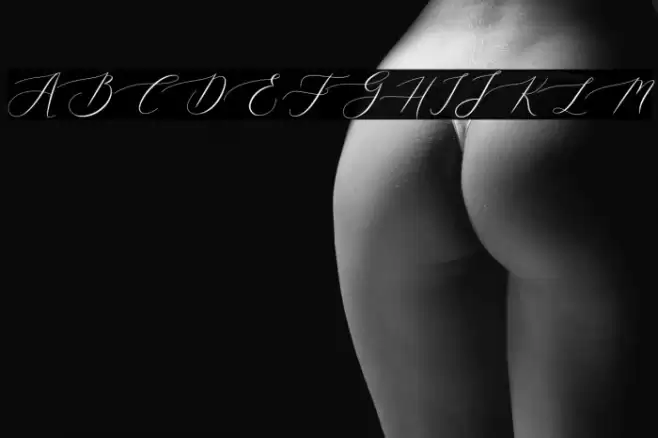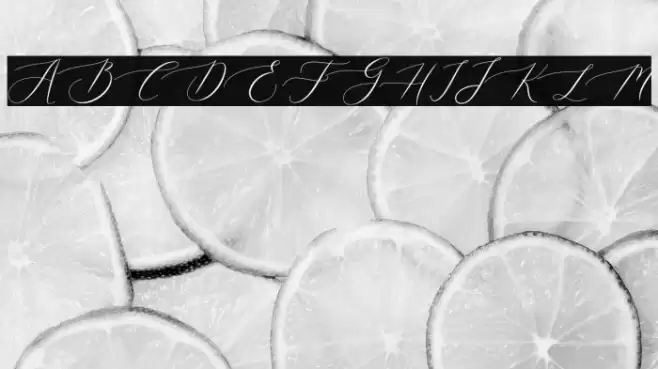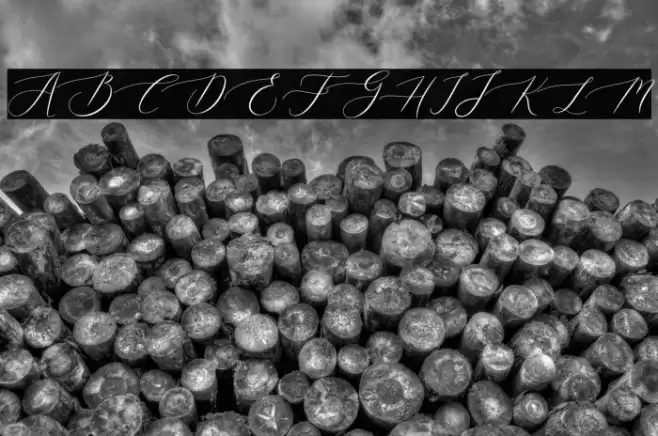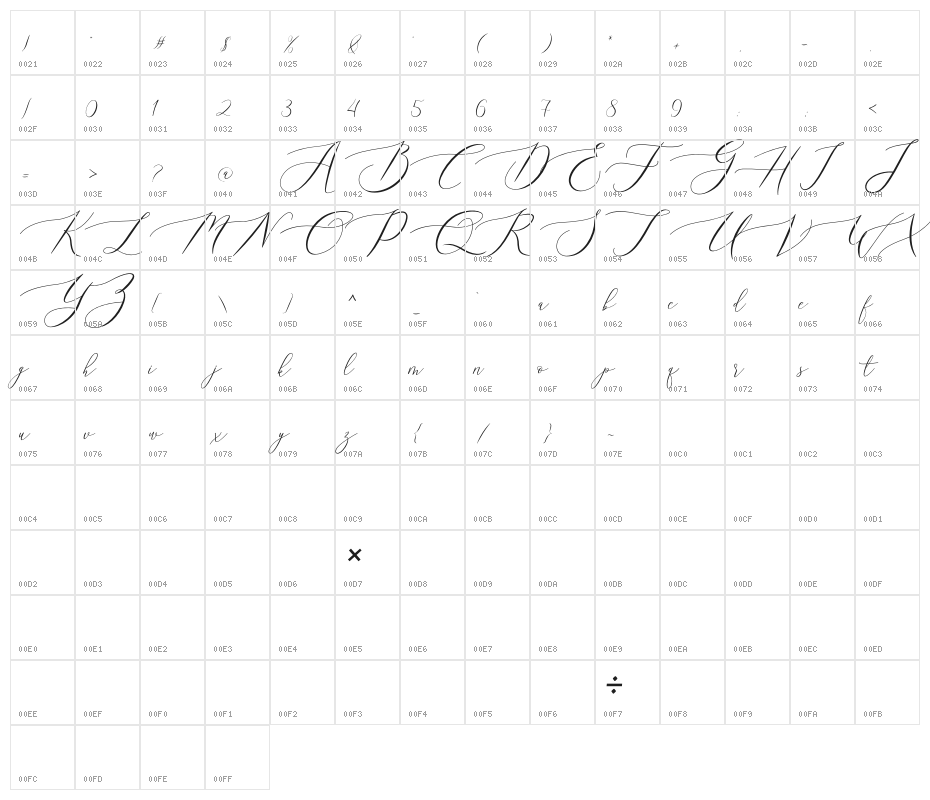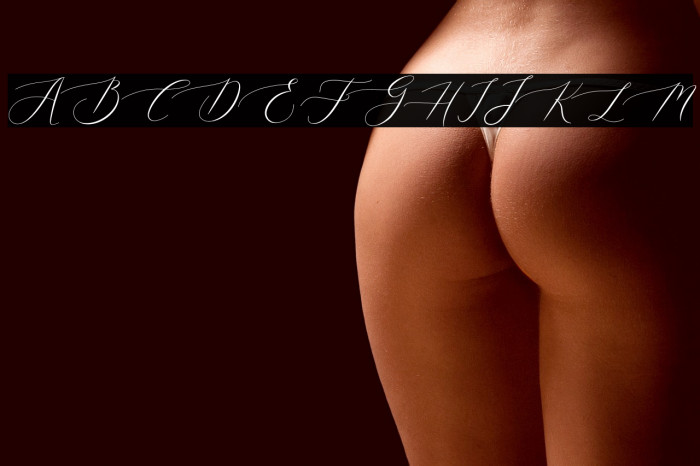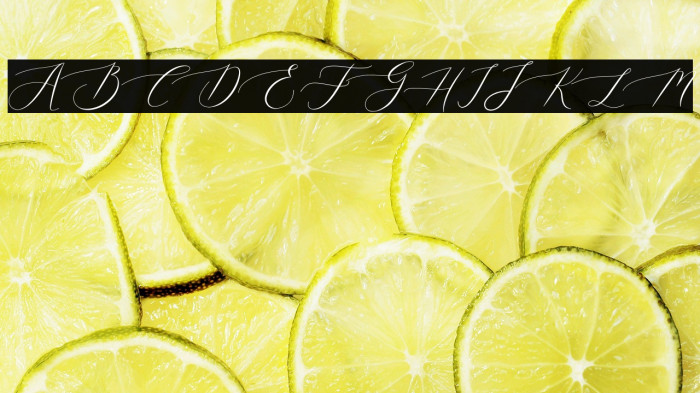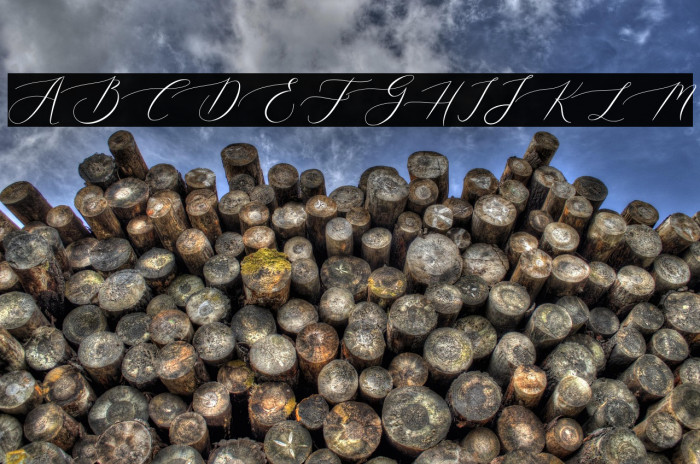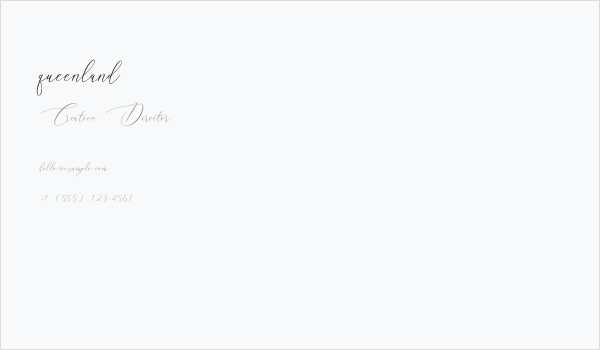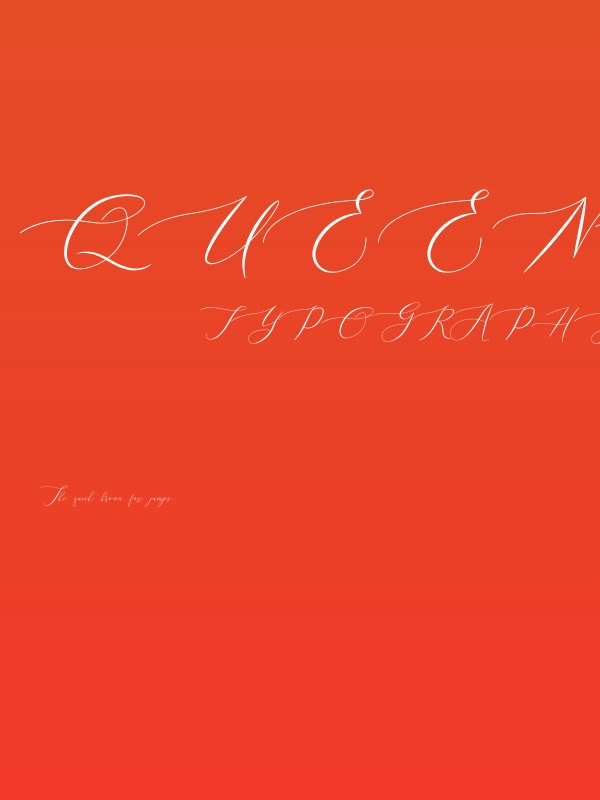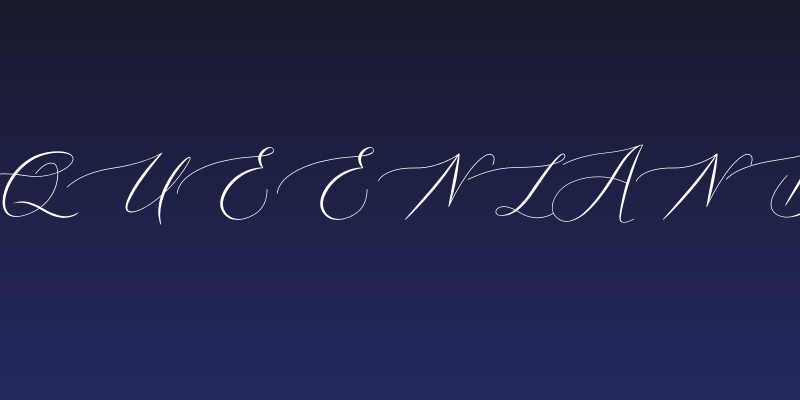
queenland Font
queenland Description
This elegant script font features a flowing, cursive style that exudes sophistication and grace. The uppercase letters are characterized by their sweeping curves and delicate loops, while the lowercase letters maintain a consistent fluidity that enhances readability. The numerals are distinct yet harmonize well with the overall script style, providing a cohesive look. Special characters are thoughtfully designed to match the elegance of the alphabet, making this font versatile for various applications. Its thin strokes and high contrast give it a refined appearance, perfect for formal invitations, branding, and decorative purposes.
A sophisticated script font with flowing, elegant curves and high contrast from Uncategorized fonts.
- Proposed Projects: Ideal for wedding invitations, luxury branding, elegant stationery, and decorative signage.
- Overall Style: Elegant, Decorative
- Use Case: Headlines, Invitations, Branding